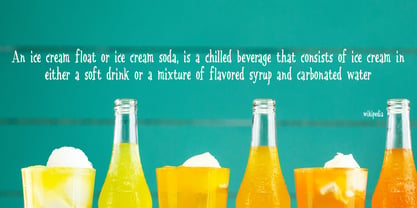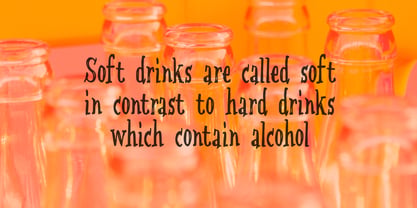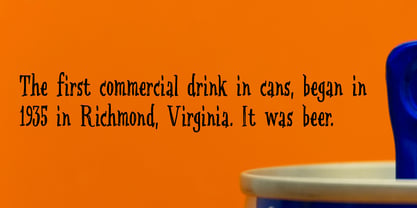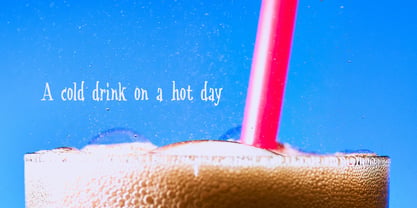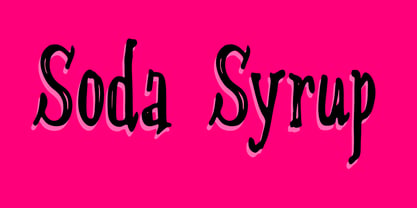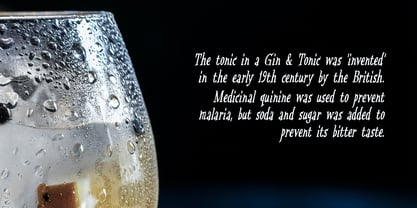
Soda Syrup Pro
by Hanoded
At home, we don’t drink soft drinks at all. Maybe sometimes, when one of the kids has a birthday party, but we normally don’t have a stash of the stuff. We have cordial, or, as wel call it in Holland: limonadesiroop (‘Lemonade Syrup’). There you go, another font name explained!
Soda Syrup was made with a marker pen and a lot of paper! It comes with a frizzy, sticky goodness to give your designs that extra kick.
About Hanoded
Hanoded is run by Dutchman David Kerkhoff. His fonts are a mishmash of styles, as he just creates whatever pops into his head. You will find a lot of brush fonts in his collection, as his favourite tools are brushes and Chinese ink, with cartoon style fonts and script fonts complementing his repertoire. Aside from making fonts, David occasionally guides tours in far-flung places, renovates his '30's house and tries reasoning with his wife and (teenage) kids. Not an easy task!